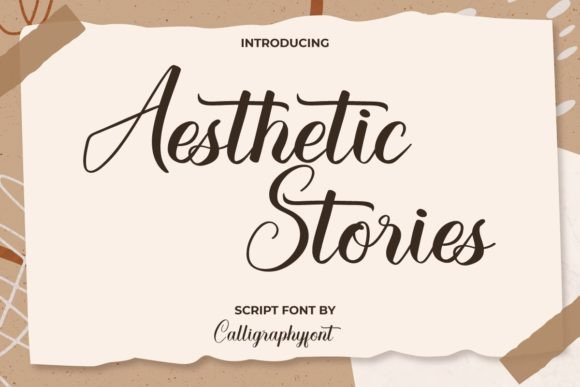
Aesthetic Stories Font: Elevate Your Brand with a Stylish Calligraphic Typface
In the world of typography, a font can make or break the visual identity of a brand. Aesthetic Stories Font is a stylish calligraphic font that has been making waves in the design community with its fresh look and clean artistic appearance. This versatile typface is suitable for a wide range of industries, from architecture to publishing, and can instantly elevate the brand image of any business.
What Makes Aesthetic Stories Font Stand Out?
- Clean and Artistic Appearance: Aesthetic Stories Font boasts a clean and artistic appearance that makes it classy and sophisticated.
- Calligraphic Style: The font features a stylish calligraphic style that adds a touch of elegance to any design.
- Versatility: Aesthetic Stories Font is suitable for a wide range of industries, including architect, café, clothing brand, event organizer, florist, furniture, handicrafts, homeware, jewelry, library, pottery, printing, publishing, real estate, restaurant, skincare, spa salon, writer, and many more.
Industries That Can Benefit from Aesthetic Stories Font
Aesthetic Stories Font is a versatile typface that can be used in various industries to create a strong brand image. Here are some examples:
- Architecture: Aesthetic Stories Font can be used by architects to create elegant and sophisticated branding materials, such as business cards, brochures, and website headers.
- Café and Restaurant: Cafés and restaurants can use Aesthetic Stories Font to create a warm and inviting atmosphere, perfect for branding materials, menus, and signage.
- Clothing Brand: Fashion brands can elevate their brand image with Aesthetic Stories Font, using it for logos, packaging, and marketing materials.
- Event Organizer: Event organizers can use Aesthetic Stories Font to create elegant and sophisticated branding materials, such as invitations, programs, and event signage.
- Florist and Homeware: Florists and homeware businesses can use Aesthetic Stories Font to create a delicate and elegant brand image, perfect for branding materials, packaging, and marketing materials.
Design Tips for Using Aesthetic Stories Font
To get the most out of Aesthetic Stories Font, here are some design tips to keep in mind:
- Pair with Neutral Colors: Aesthetic Stories Font looks best when paired with neutral colors, such as white, black, or gray. This allows the font to take center stage and creates a clean and elegant look.
- Use for Headings and Titles: Aesthetic Stories Font is perfect for headings and titles, where its elegant and sophisticated style can shine.
- Experiment with Font Sizes: Don’t be afraid to experiment with different font sizes to create visual interest and hierarchy in your design.
The Benefits of Using Aesthetic Stories Font for Typography
Aesthetic Stories Font offers several benefits for typography, including:
- Improved Readability: Aesthetic Stories Font is designed to be highly readable, making it perfect for body text and paragraphs.
- Elegant and Sophisticated: The font’s elegant and sophisticated style adds a touch of class to any design.
- Versatility: Aesthetic Stories Font can be used in a wide range of design applications, from print to digital.
In conclusion, Aesthetic Stories Font is a stylish calligraphic font that can elevate the brand image of any business. Its clean and artistic appearance, versatility, and elegant style make it perfect for a wide range of industries and design applications. By following the design tips outlined above, you can get the most out of Aesthetic Stories Font and create stunning typography that leaves a lasting impression.